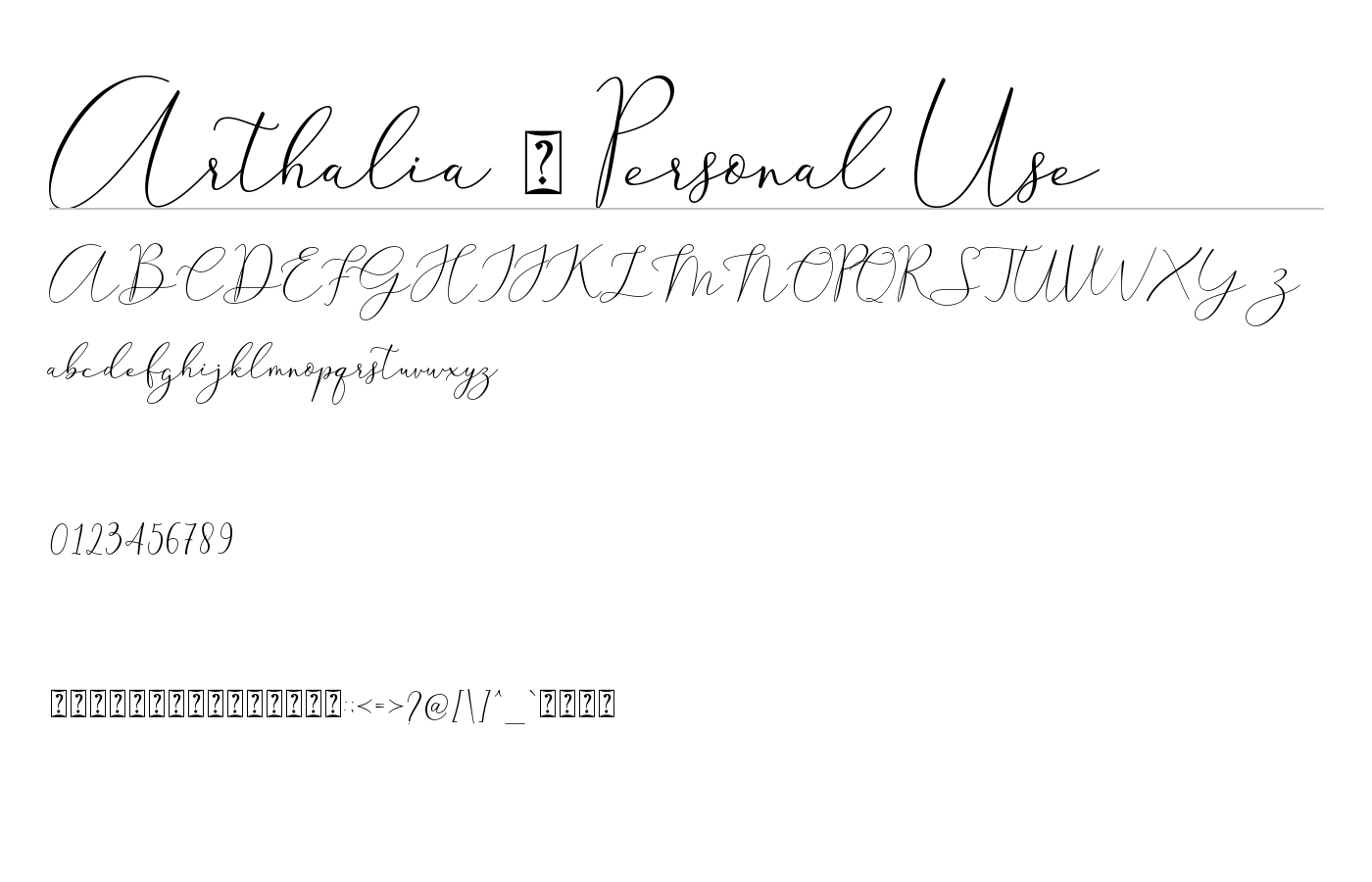
Arthalia is a delicate, elegant script font characterized by its fine, flowing lines and graceful, handwritten style. Its light weight and tall, slender letterforms create an airy and sophisticated feel, making it perfect for invitations, branding, and any design that calls for a romantic or refined touch. This font works beautifully in settings where a personal, artistic expression is desired, especially in fashion, luxury, or creative projects.
Arthalia Font
About Arthalia Font